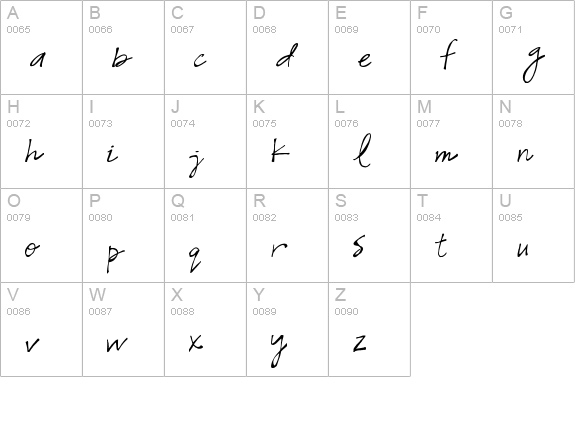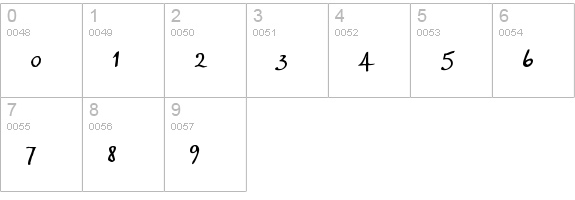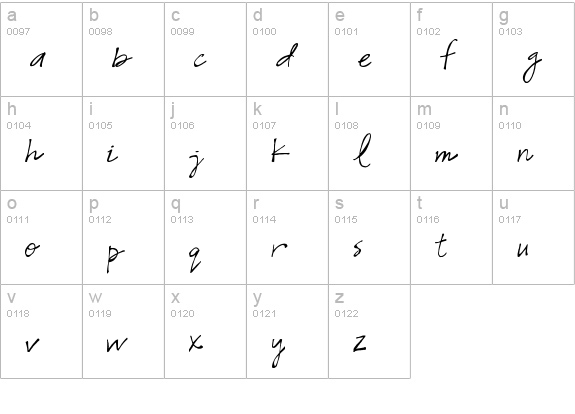
Snowshoe Font Details
Snowshoe font is a beautifully crafted typeface that effortlessly captures the essence of winter landscapes. With its delicate curves and intricate details, this font brings a touch of elegance and sophistication to any design project. The letters seem to dance across the page, evoking a sense of movement and grace. This font is not only visually stunning, but it is also incredibly versatile. It can be used for a wide range of purposes, from branding and packaging to invitations and greeting cards. Its timeless design ensures that it will never go out of style, making it a perfect choice for both classic and modern designs. One of the best things about Snowshoe font is that it is free! Yes, you read that right. This amazing font can be freely downloaded from FontsMarket.com. It is rare to find such a high-quality font available for free, so take advantage of this incredible offer and enhance your designs with this stunning typeface. Whether you are a professional designer or someone who simply appreciates beautiful typography, Snowshoe font is sure to impress. Its unique and captivating design will make your projects stand out from the crowd and leave a lasting impression on your audience. So don't wait any longer! Head over to FontsMarket.com and download Snowshoe font today. Let your creativity soar and bring your designs to life with this exquisite typeface.